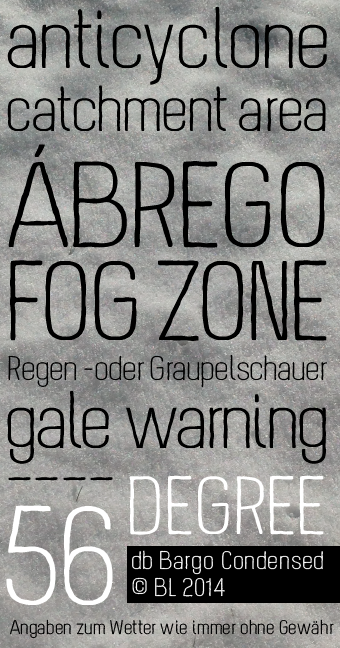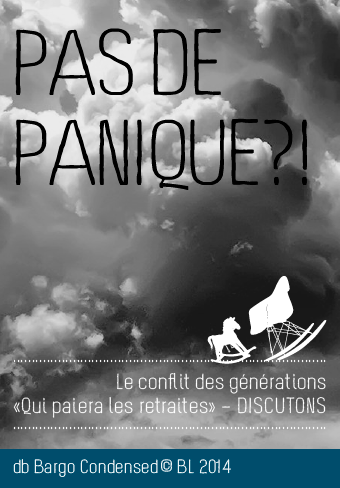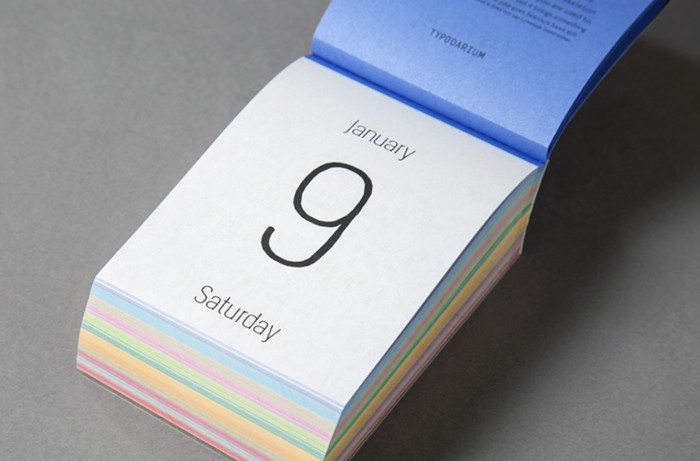
I love the strokes for the lines. =)
~Looks Great.
Too Beautiful *_*
Beautifully proportioned with a delightful 'uncertainty' of line.
Exceptionally beautiful!
I'm with the guys! Excellent start of a NEW path!
Curves are too 'perfect', especially the 's'. Still giving a 10/10 and a fave
The whole font is too perfect! :) Definitely my fave.
The effect is superbe
I love it
Awesome. I love the wavering lines.
Congratulations! FontStruct Staff have deemed your FontStruction worthy of special mention. “db Bargo Condensed” is now a Top Pick.
Some nice shapes, and I particularly like the hand drawn effect. Although I think you could do a much better M. It seems odd, and out of place to my eyes with it's slanted outer edges.
Another gorgeous clear sans-serif text font from one of our talents here
Congratulations! Seeking more FontStructions on Typodarium 2017, and Happy Bargo Day :)